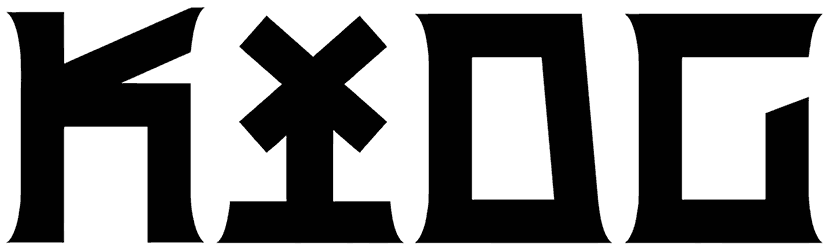
Kidc Font
If you look for a less-seen and well-designed font to use on special occasions, the Kidc font satisfies your need. This unique font reminds you of Japanese architecture, while the spectacular design of the letters makes it challenging to distinguish them.
The Japanese font does not support lowercase letters and symbols; thus, it is a good choice for titles, posters, and logos. This minimal yet geometric font, with its elegant design and sharp edges, will remain in the viewers’ minds forever.